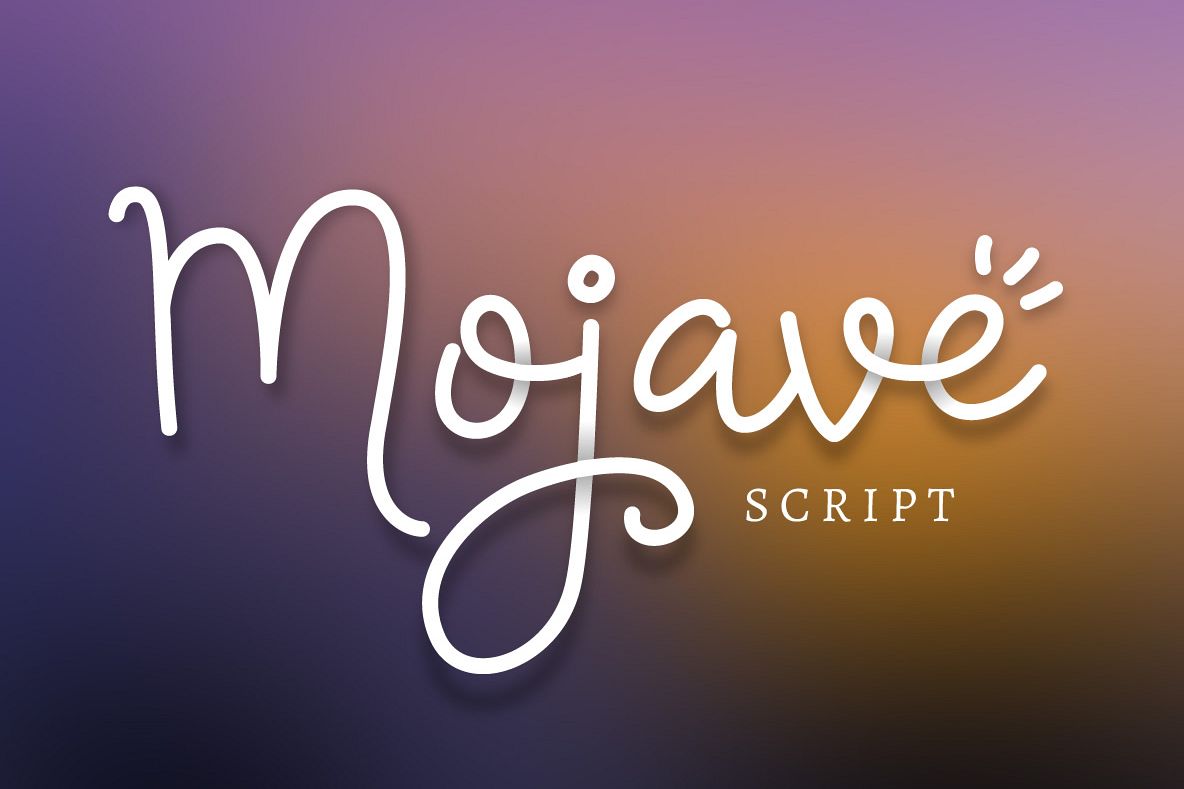
Mojave Script Extras
Introducing: Mojave Script! A simple and sweet font that is perfect for greeting cards, invitations, prints, banners, and so much more! It comes with Mojave Extras which includes alternate versions of certain letters as well as doodles and flourishes! English language only.
Mojave Script Extras